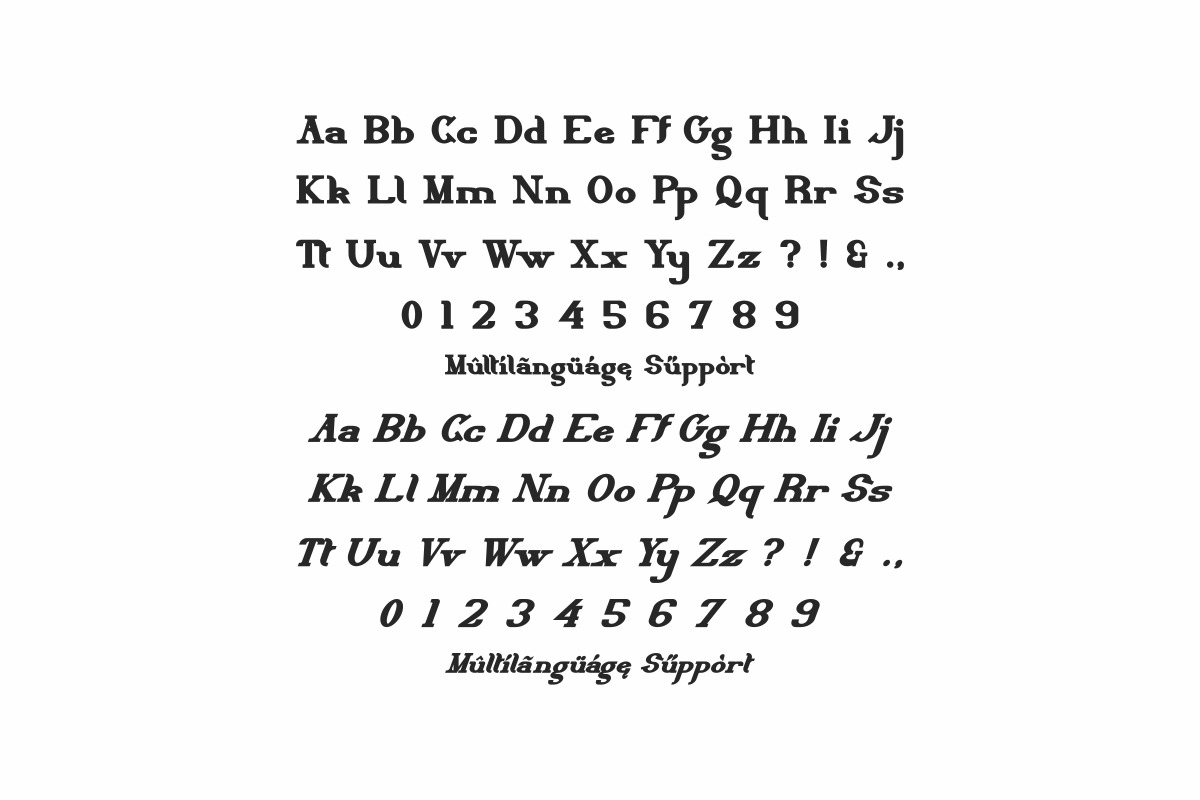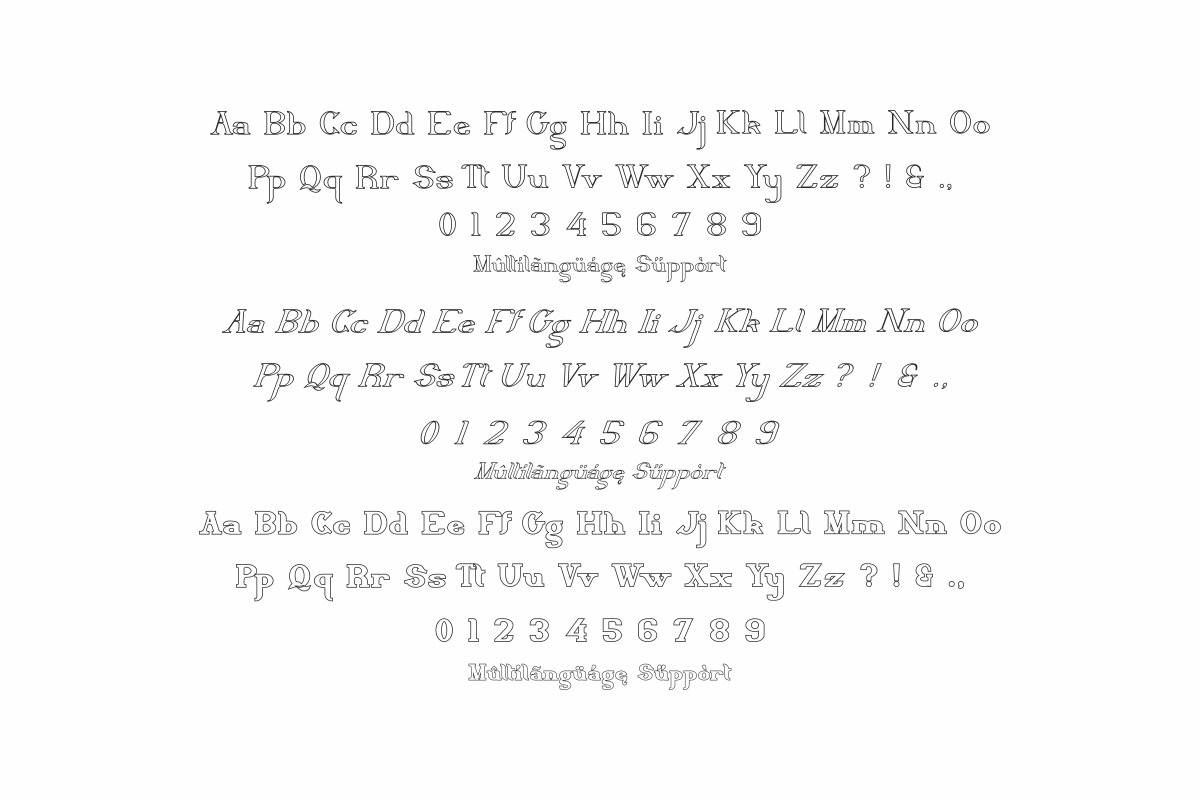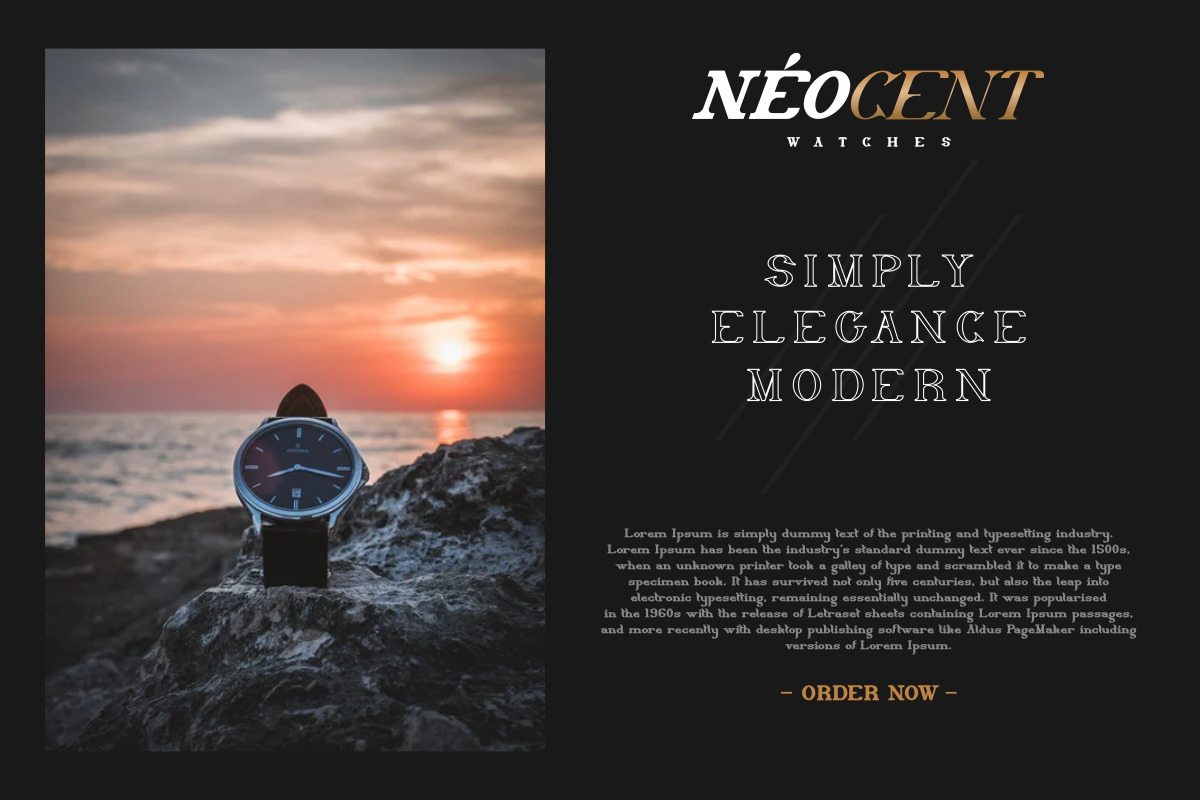
Delith Six Different Styles Font
Delith Font is a font family with six different styles. Originally made by NihStudio Font Designers : Nouval and Sarah. On the package you will get :
Handcrafted here in our Studio , Indonesia. delith Font will be great for any projects (require extended license) including : branding, logo, stationery, business card, signage, flyer, brochure etc.
The Delith Font has 7 styles : Regular, Italic, Bold, Bold Italic, Line, Line Italic and Line Bold